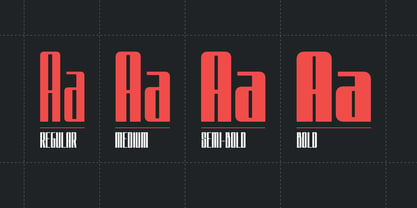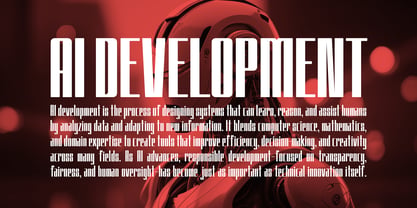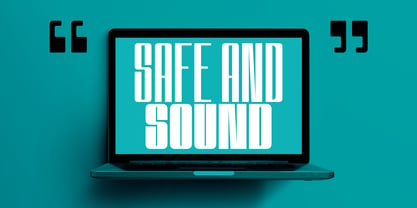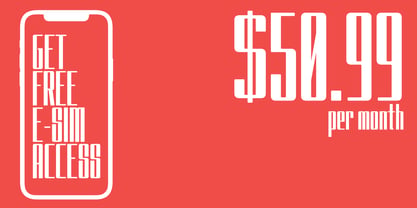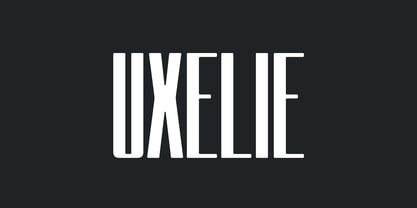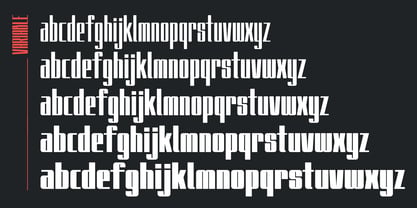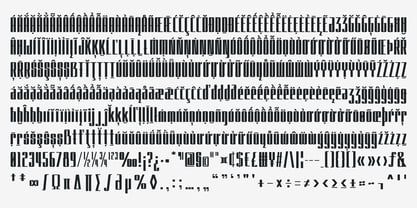
Uxelie
by Outerend
The Uxelie Font Family was designed by Taka Ikari and published by Outerend. Uxelie contains 5 styles and family package options. More about this family
Uxelie is a very condensed, modern typeface with a bold, blocky presence softened by subtle curved edges. Designed to feel futuristic yet refined, it balances sharp structure with smooth geometry. Available in Regular, Medium, Semi-Bold, Bold, and a versatile Variable font, Uxelie excels in tech-forward branding, modern UI, striking logos, and cinematic film or TV credits where clarity and attitude matter.